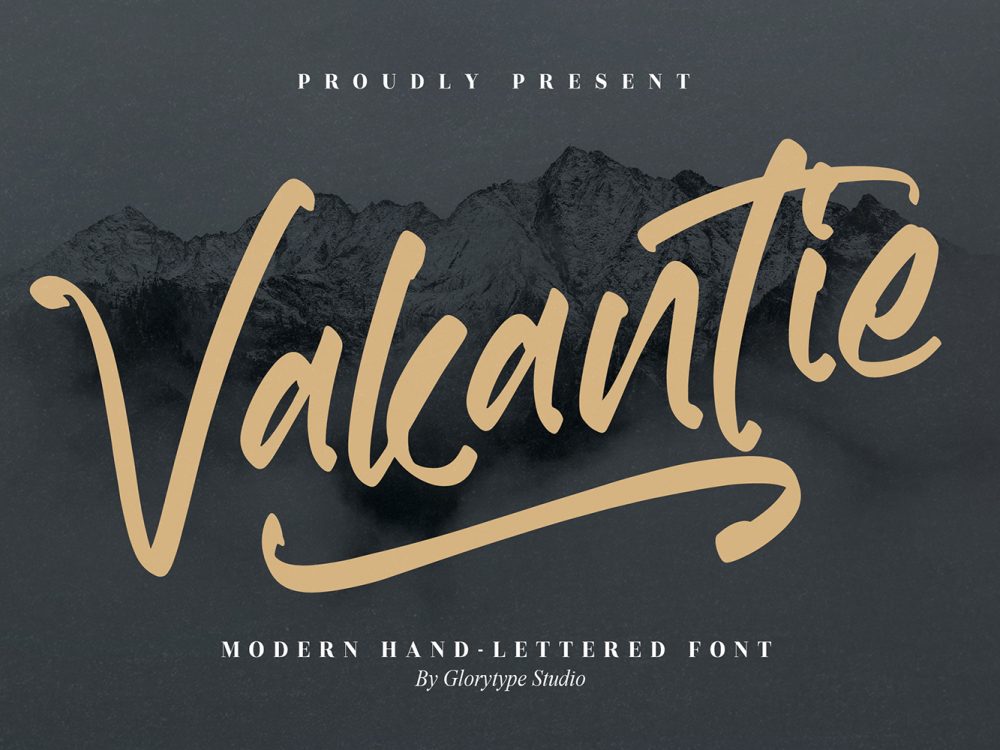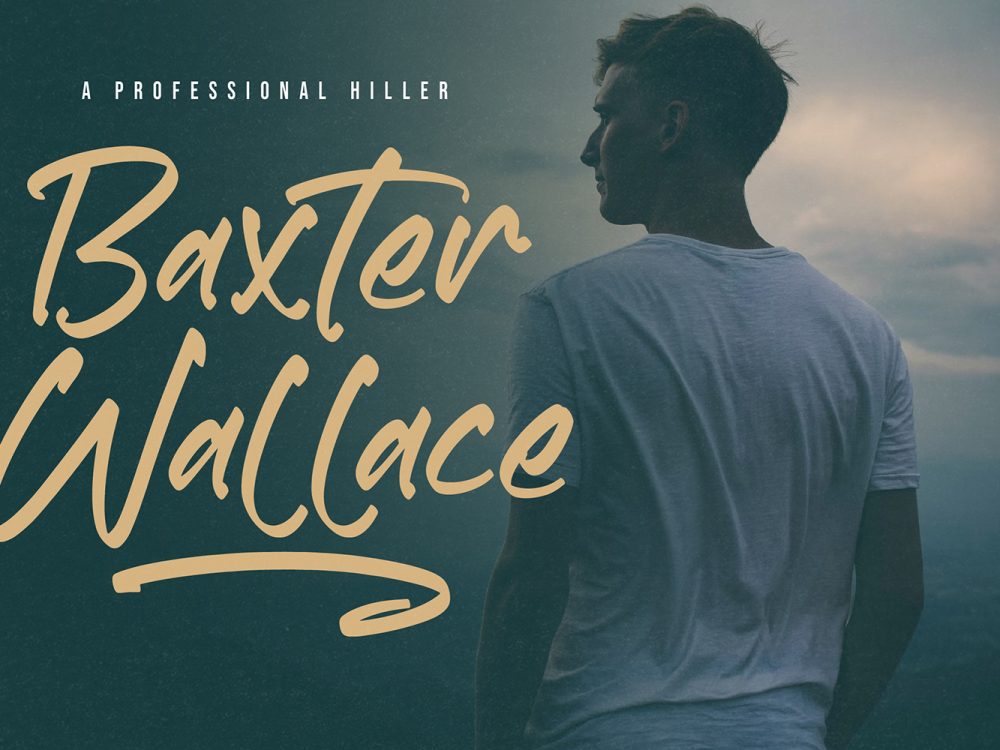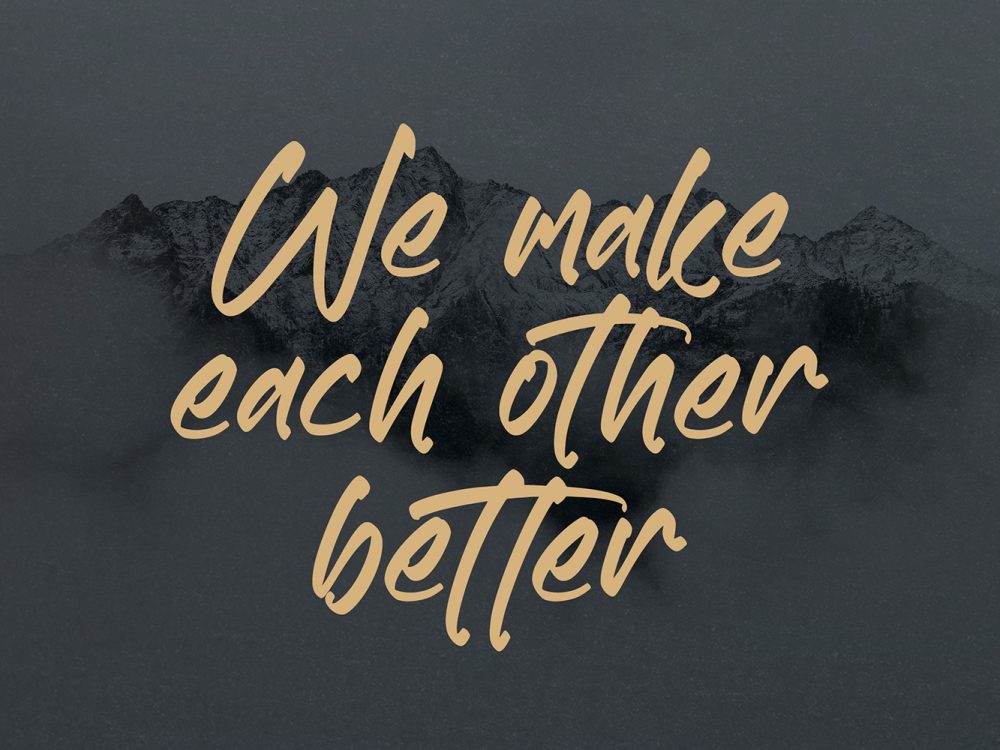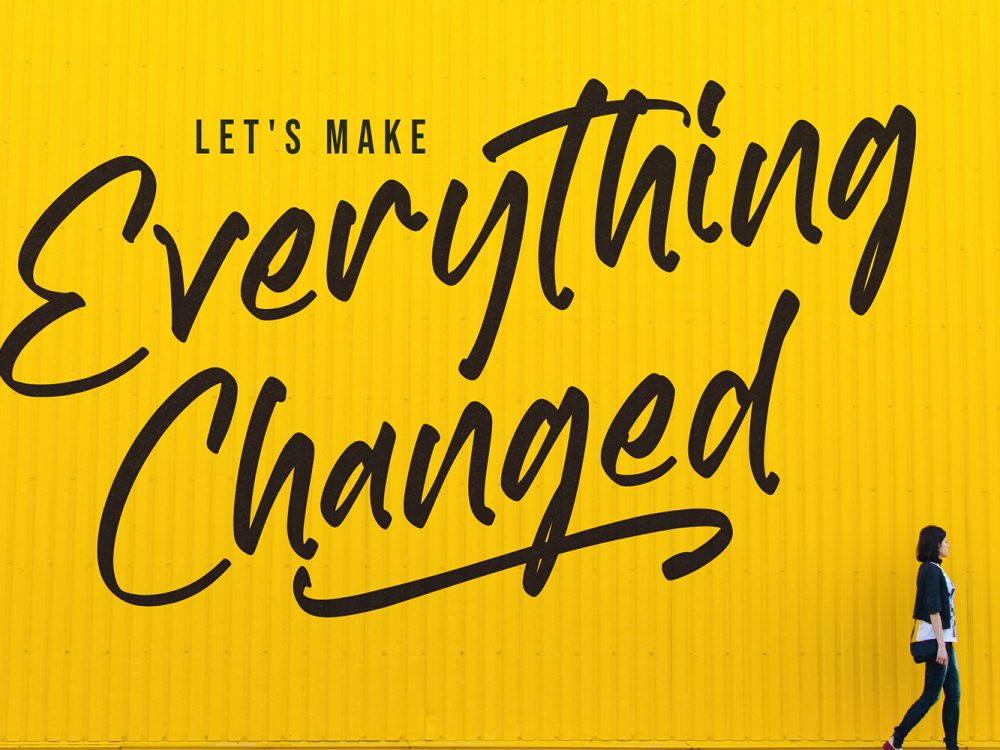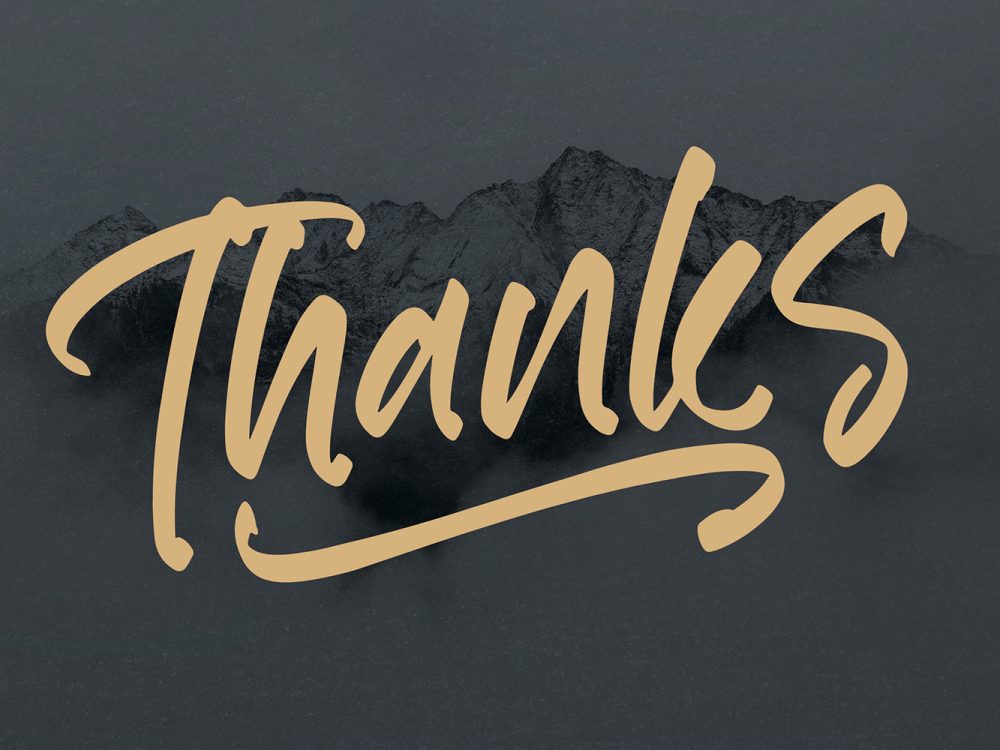
Vakantie Free Font
Vakantie Free Font is a beautiful handwritten font that simulates detailed brush writing and is very suitable for creating various design projects that require a scripted font. These can be posters, invitations, cards, branding, flyer prints, etc. If you wish to access more features and use them for commercial work please buy the full version.